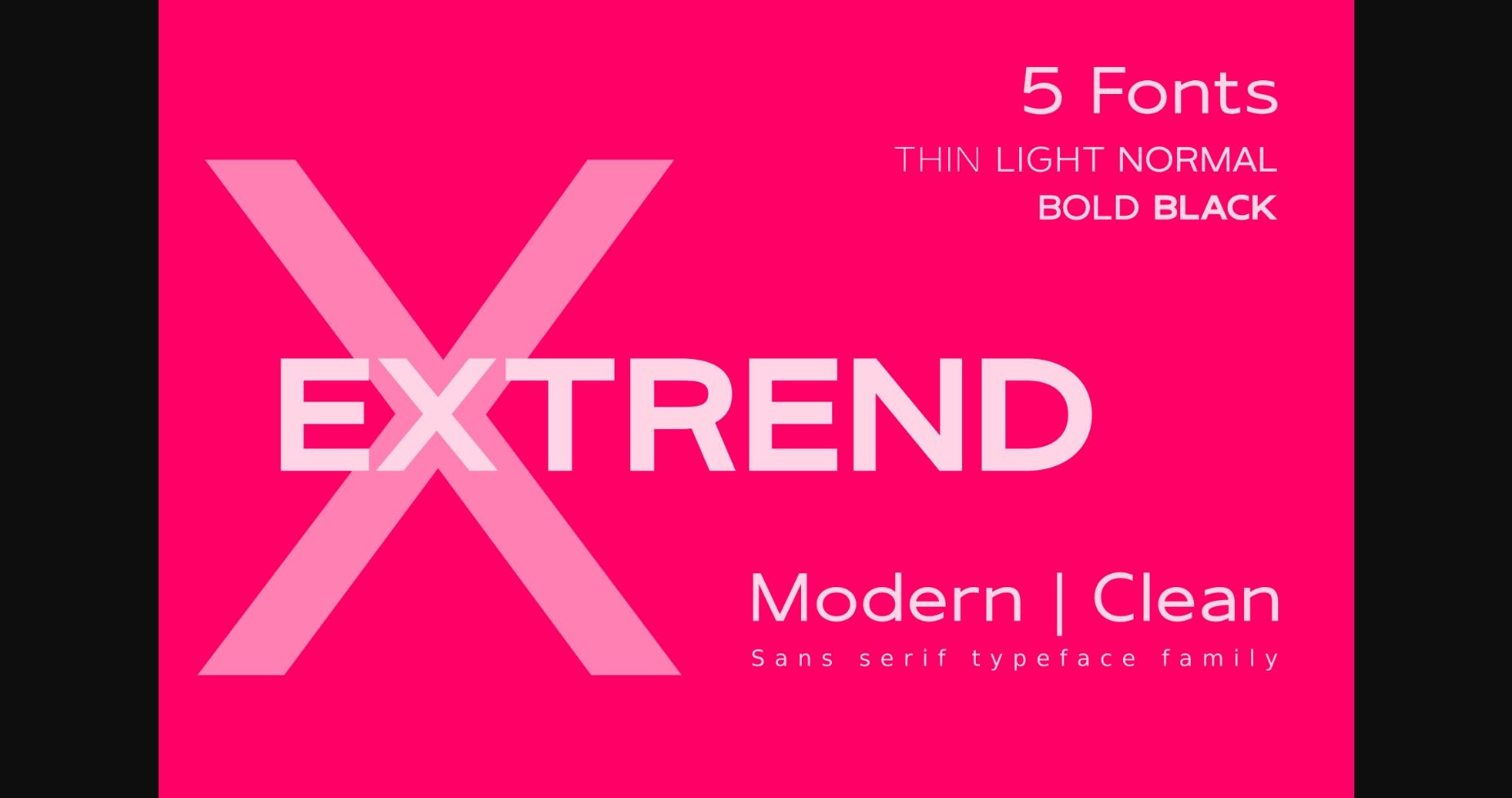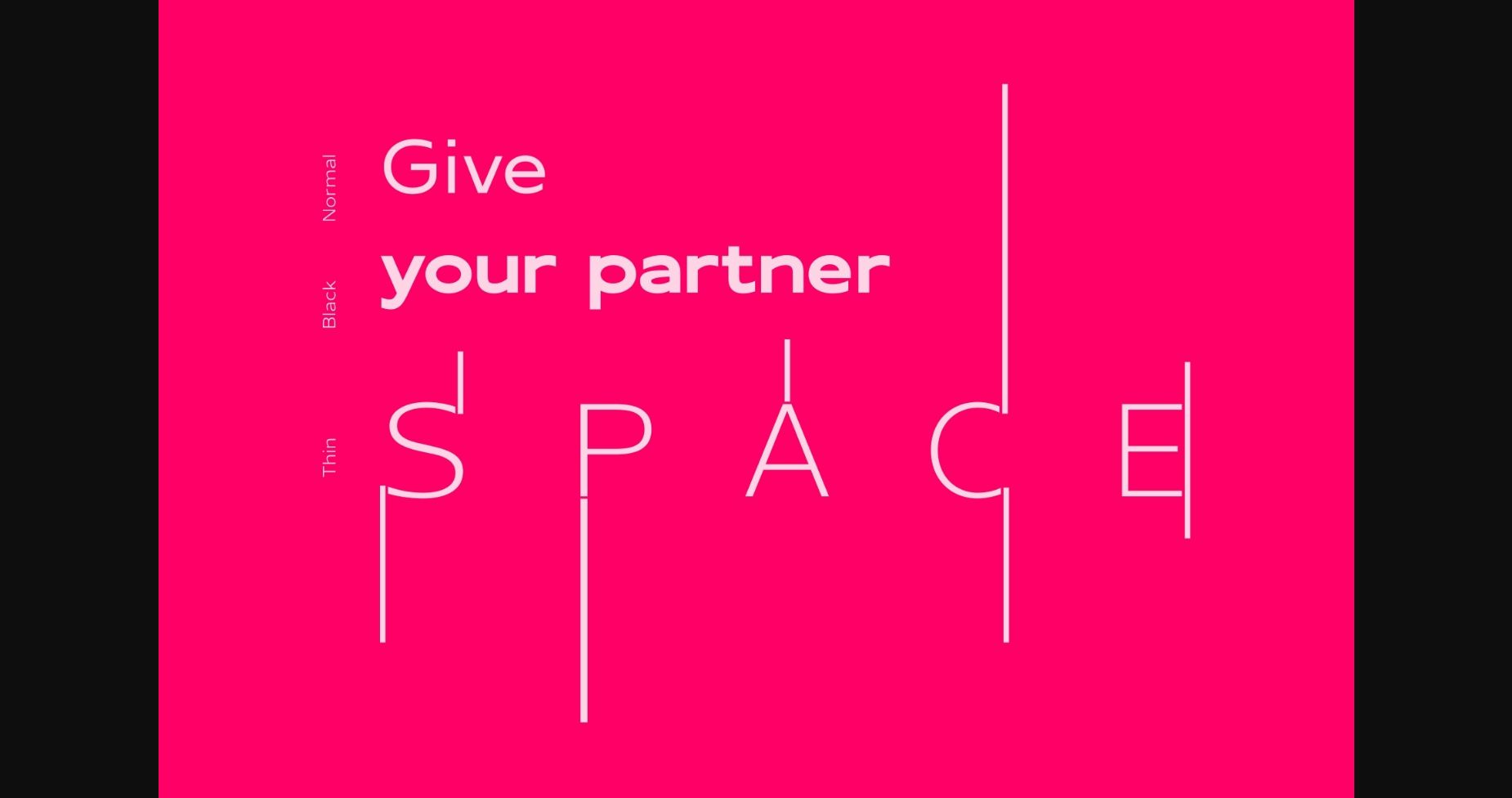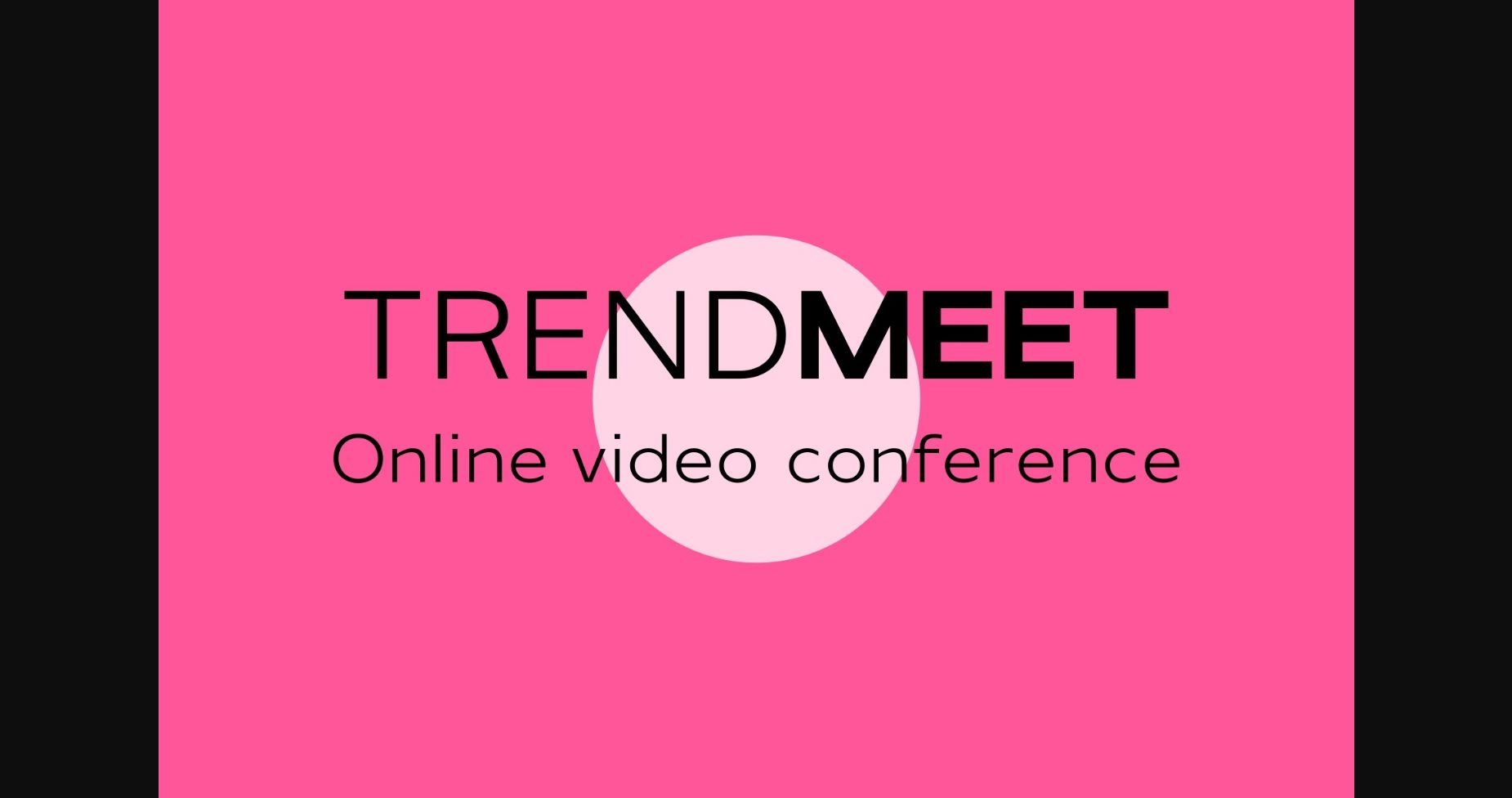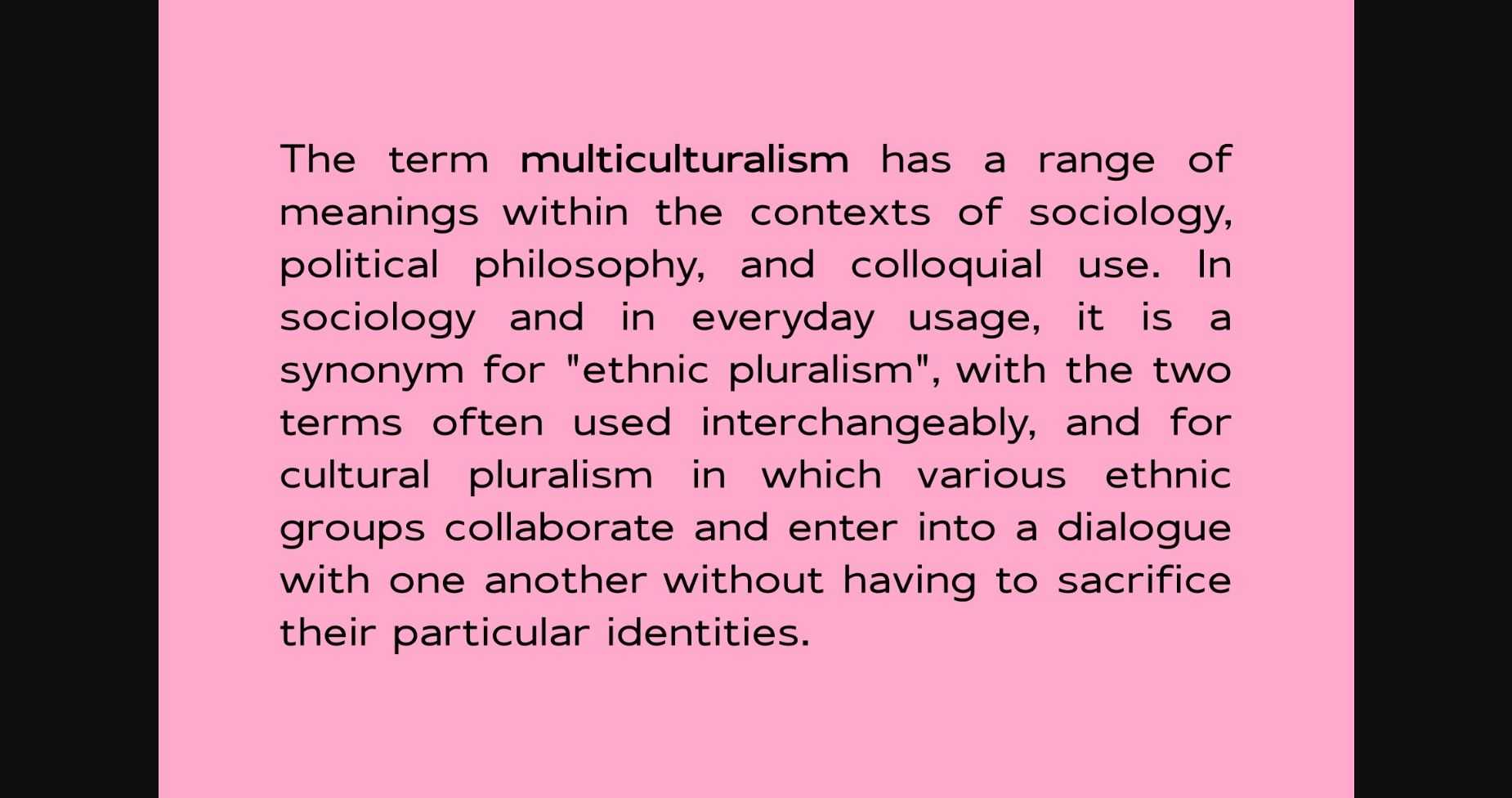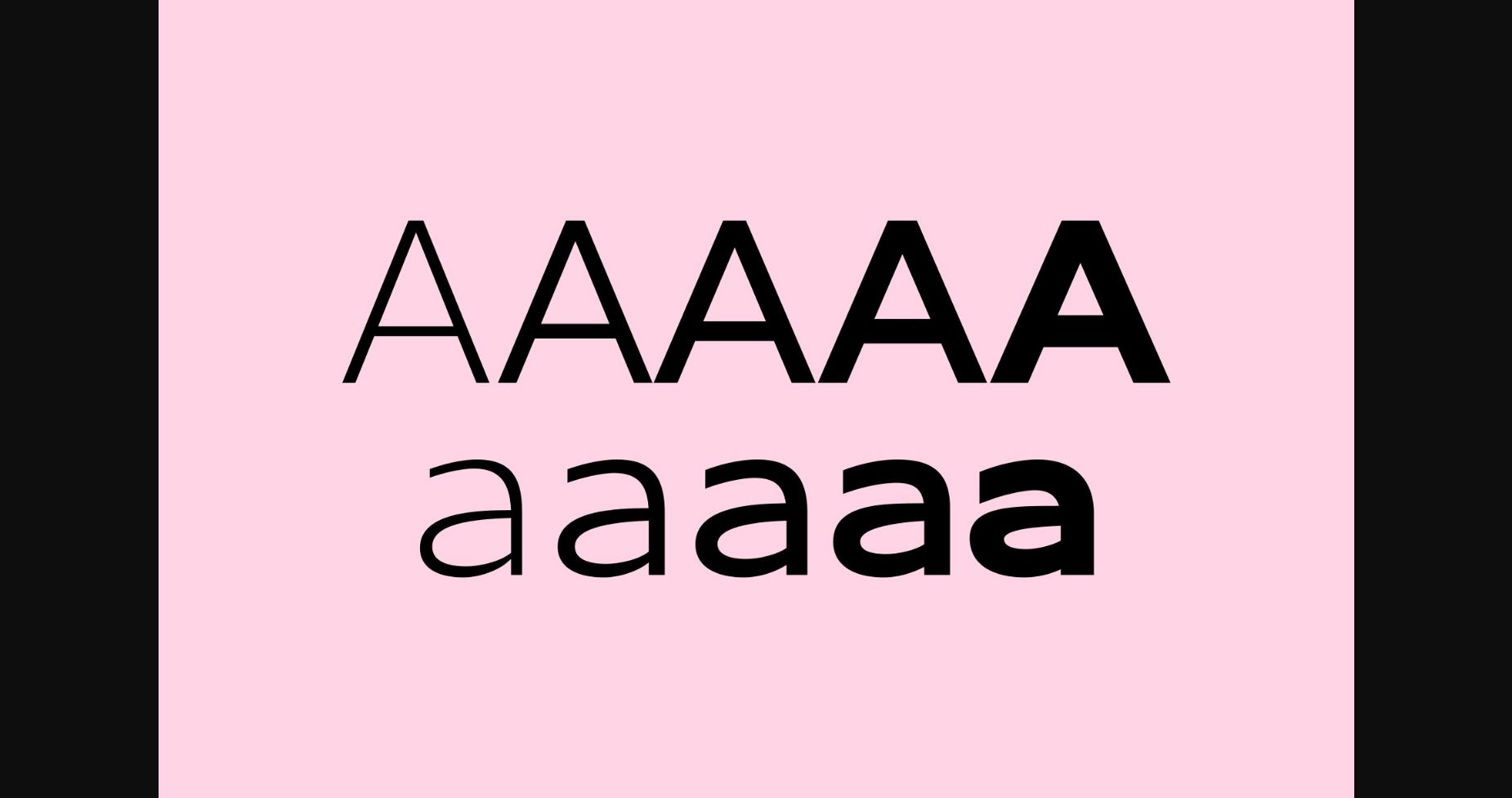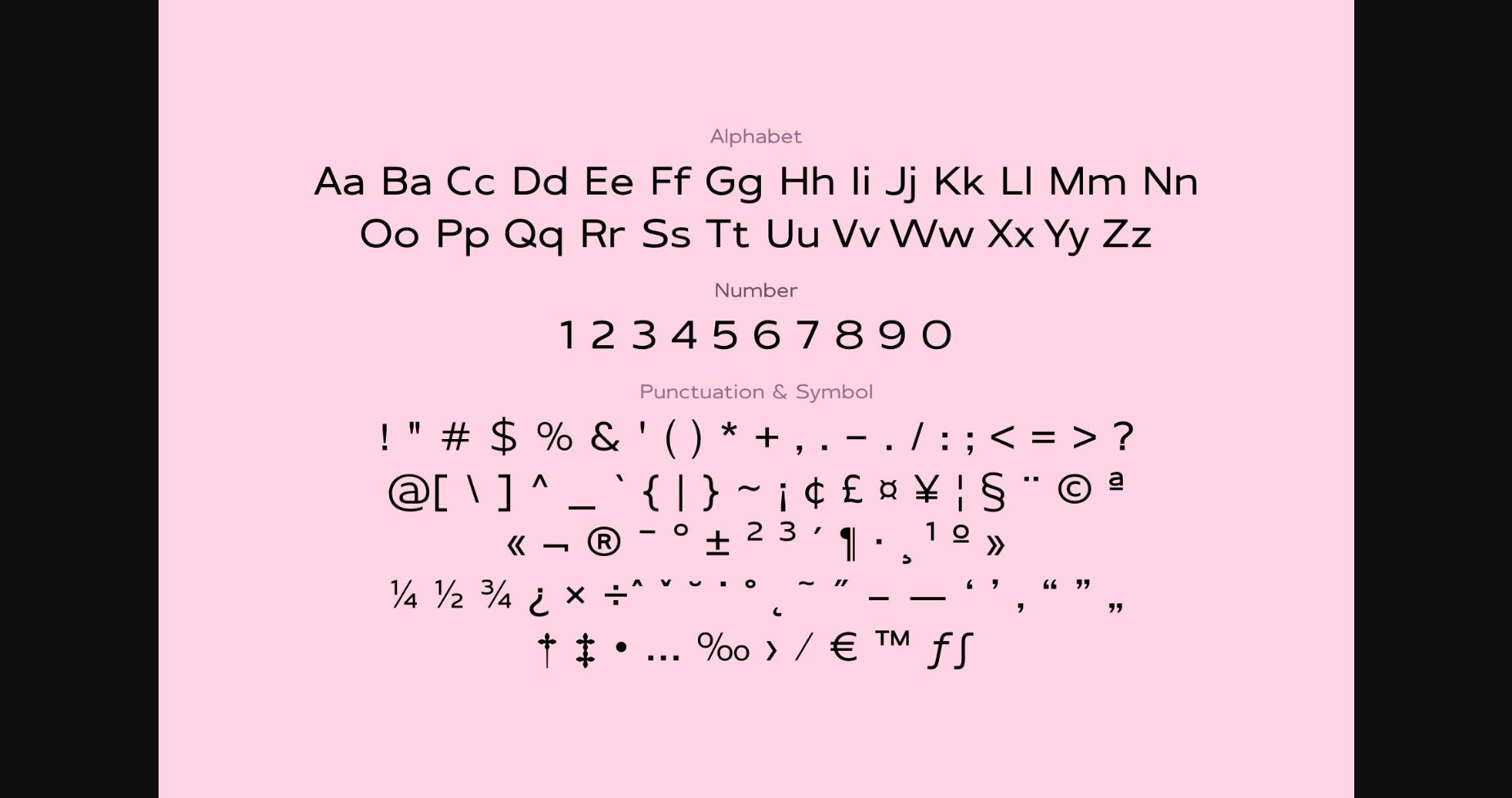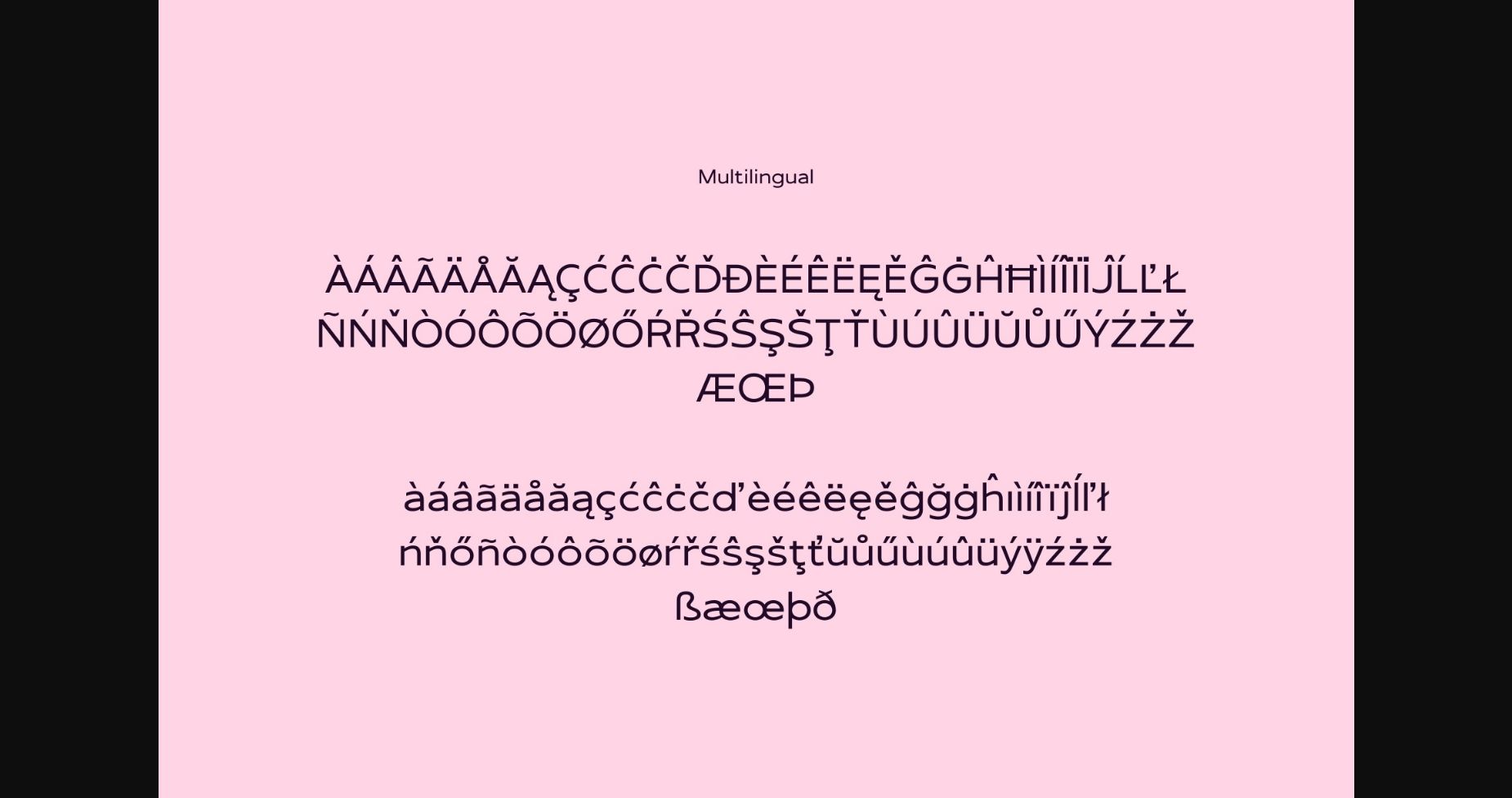
Extrend Font
About Extrend Font
This modern and elegant sans-serif font is perfect for any project. Its clean lines, open shapes, and subtle curves create a timeless and contemporary look. Ideal for logos, headlines, and more, it’s sure to make your work stand out from the crowd.